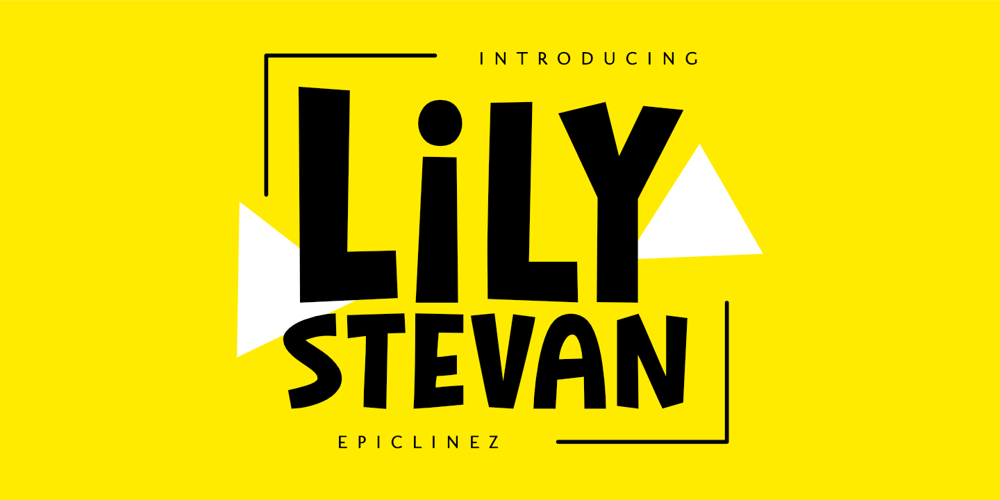
Lily Stevan Font Family was designed by Aldy Sidik and published by Epiclinez. Lily Stevan contains 1 styles and family package options. You know that feeling when you see something and you’re like “Hey, I like this!”? Hopefully, Lily Stevan is that font. With its clean lines and playful design, it’s perfect for fun little sayings, logos, and headlines. It’s easy to use and will make your designs pop right off the page. Download Lily Stevan today!So what’s included : Basic Latin Uppercase and Lowercase Numbers, symbols, and punctuations Multilingual Support. Accented Characters : ÀÁÂÃÄÅÆÇÈÉÊËÌÍÎÏÑÒÓÔÕÖØŒŠÙÚÛÜŸÝŽàáâãäåæçèéêëìíîïñòóôõöøœšùúûüýÿžß PUA Encoded and fully accessible without additional design software Simple Installations Works on PC & Mac Thank You!